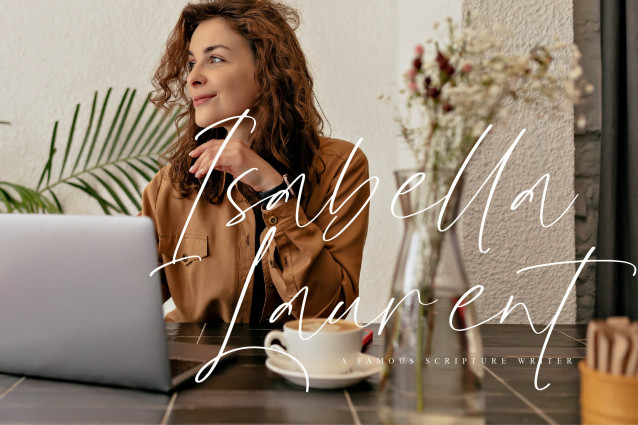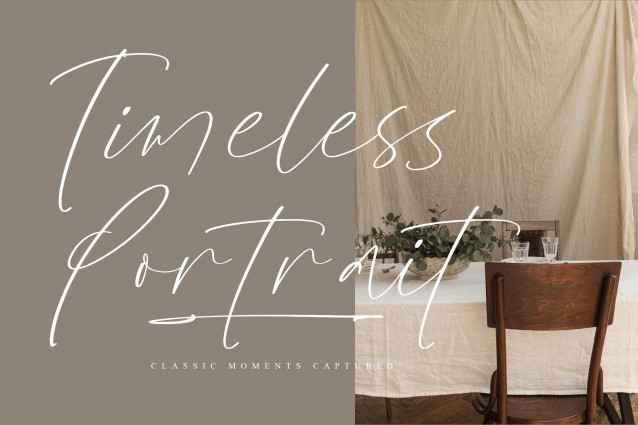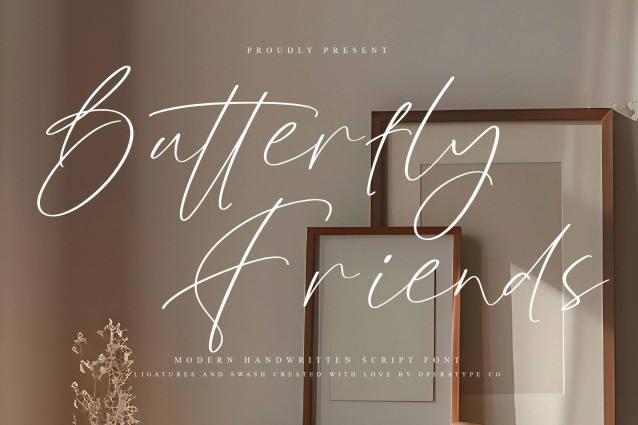
Butterfly Friends Font
**Butterfly Friends** is a modern handwritten script font that combines delicate elegance with effortless simplicity. Inspired by natural handwriting and graceful pen strokes, this typeface features slender letterforms, smooth curves, and expressive swashes that create a light, airy, and sophisticated appearance. Designed to bring warmth and personality to every project, **Butterfly Friends** offers a beautiful balance between contemporary style and timeless charm. Its flowing characters, refined ligatures, and stylish alternates create typography that feels authentic, feminine, and visually graceful while maintaining excellent readability.
Inspired by luxury signature lettering and minimalist handwritten aesthetics, **Butterfly Friends** delivers a refined handwritten personality that works beautifully across both print and digital applications. The smooth natural rhythm between letters creates seamless compositions that feel elegant, personal, and professionally crafted.
Whether used for logos, packaging, social media graphics, wedding invitations, editorial layouts, or boutique branding, **Butterfly Friends** adds a sophisticated handwritten touch that instantly elevates the visual appeal of any design project. Elegant yet versatile, this typeface is thoughtfully created for designers who appreciate clean aesthetics, artistic expression, and timeless handwritten beauty.